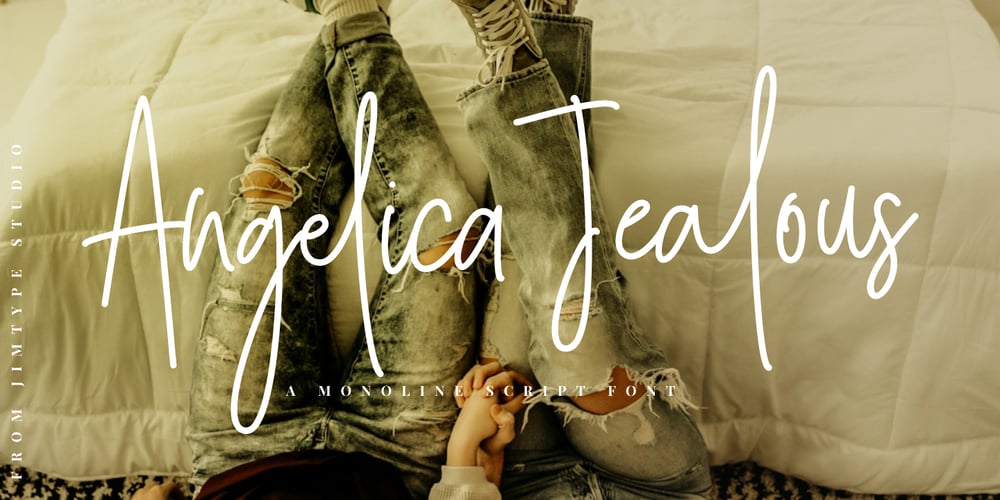
Angelica Jealous
Angelica Jealous font
Angelica Jealous Font Family was designed by Jamaludin Jumadil Khubro and published by Jimtype Studio. Angelica Jealous contains 1 styles and family package options. Introducing Angelica Jealous is a monoline script font with a handwritten style an authentic and fashionable. This font is very special because it has a large selection of additional letters built in with a set of alternate uppercase and lowercase letters and the Angelica Jealous was built to match the handwriting style as closely as possible with the addition of 72 custom ligatures. This font looks very awesome for quotes, branding, logos & branding, weddings, watermark, web, crafting, social media, product design, advertisements, and much more.